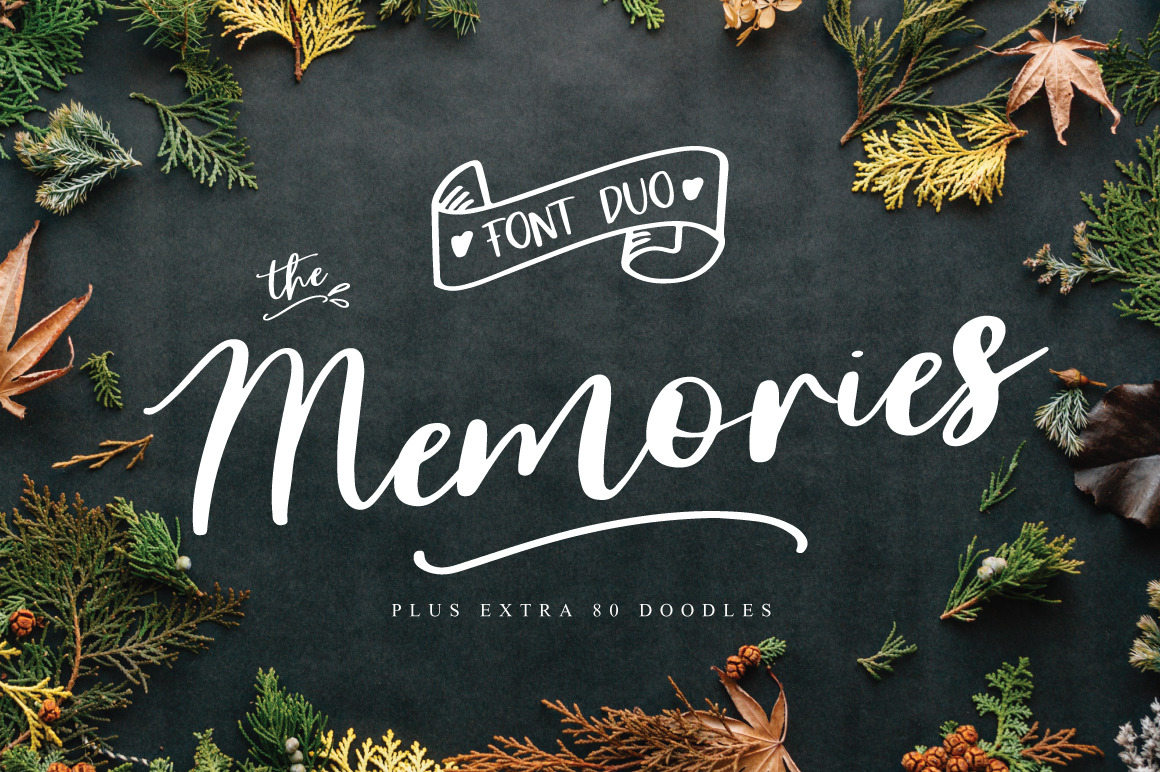
The Memorie Font DUO & Doodle
The Memories is a sweet and classic font.
Every single letter has been creative carefully and Perfectly Playful new font pair. This font is a little romantic script designed for making your set of invitations, quotes, blog posts, and more completely beautiful
The script has alternate upper and lowercase character set
And you get over 80 handy doodles illustrations to use too
Multilingual support is included for Western European